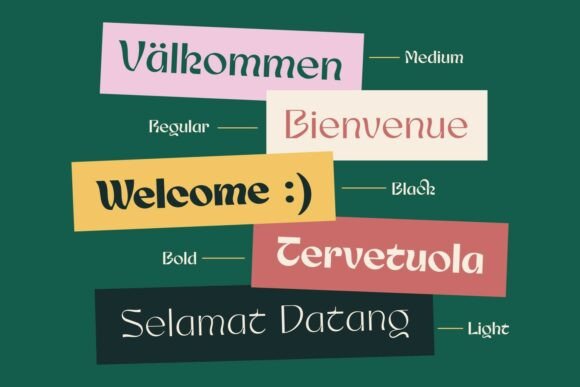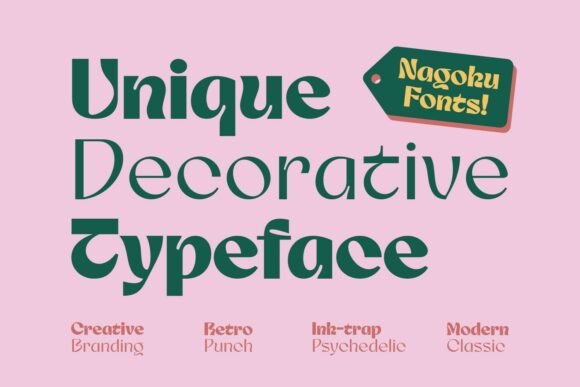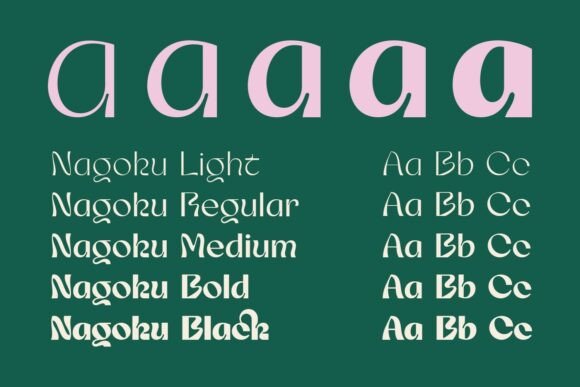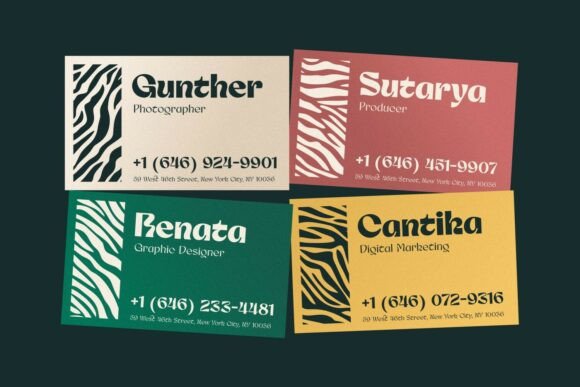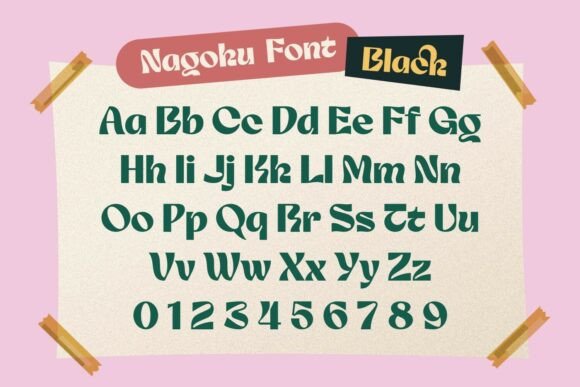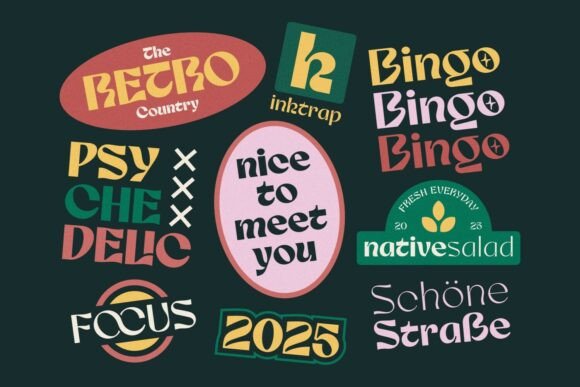
Introduction to Nagoku Font
Nagoku is a decorative display font that captures the essence of retro design with a modern interpretation.
Its soft inktrap details and smooth geometric shapes create a distinctive rhythm, giving each letterform a unique and expressive flow Drawing inspiration from vintage poster typography of the ’60s and ’70s, Nagoku blends nostalgic charm with contemporary aesthetics.
Key Features of Nagoku Font